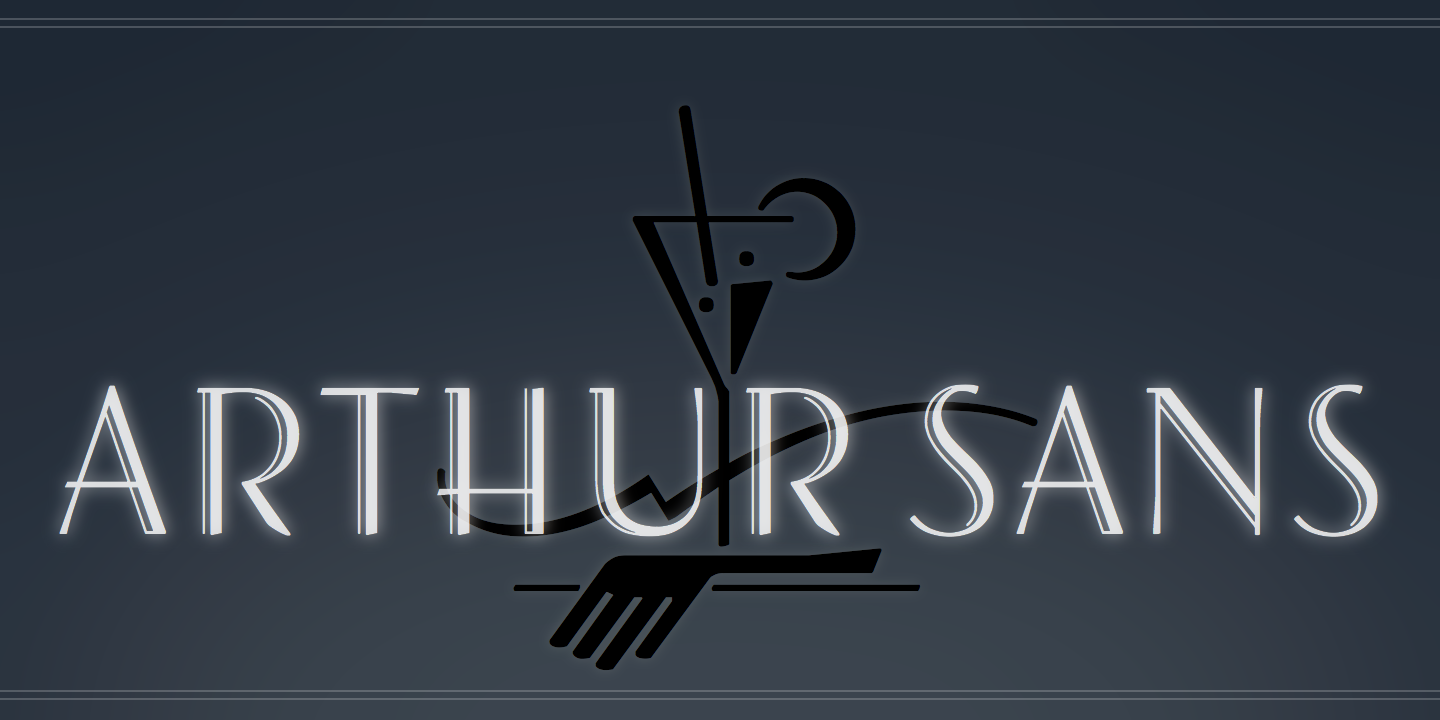
The Arthur Sans Font is a versatile and contemporary sans-serif typeface, characterized by its clean lines, open forms, and a balanced, approachable aesthetic that makes it ideal for a wide array of design applications. Imagine its refined and efficient forms providing a solid foundation for modern corporate branding, adding a sleek touch to digital interfaces and mobile applications, or forming the backbone of elegant corporate websites and annual reports. It's an excellent choice for clear, authoritative signage systems, minimalist editorial layouts, and any digital or print content where precision, efficiency, and a forward-thinking vision are paramount. Arthur Sans Font excels in delivering a pristine, uncluttered, and visually appealing experience, ensuring your message is conveyed with undeniable precision and a refined modernity, making it a stellar choice for diverse communication needs.
What makes Arthur Sans Font so exciting is its remarkable ability to convey a sense of modern sophistication and effortless clarity. It embodies a pure, functional aesthetic, making it ideal for brands and projects that want to communicate innovation and a clean, unpretentious style. This font isn't just about conveying text; it's about setting a tone of efficiency, sleekness, and contemporary design. It allows designers to create visuals that are both visually impactful and remarkably readable, making it an invaluable asset for those looking to communicate a sense of progress, simplicity, and refined elegance. Its versatility ensures it performs beautifully across various mediums, from small screen text to large-format displays. For seamless integration into modern designs, explore the Arthur Sans Font Free Download.
The Arthur Sans Font family is typically structured to offer a range of styles that amplify its minimalist and modern appeal. Beyond the primary Arthur Sans Regular typeface, you might find companion styles such as a more impactful Arthur Sans Bold for stronger emphasis, or perhaps Arthur Sans Light for a delicate, airy quality. Given its clean, geometric leanings, the family may also include variations in width (e.g., Condensed or Expanded) to maximize versatility in different layouts, or specialized features for unique design needs. These diverse family members provide designers with the flexibility to establish a clear typographic hierarchy and maintain a consistent, cutting-edge, and often minimalist aesthetic across all elements of their project, from dominant headlines and logos to subtle design accents.